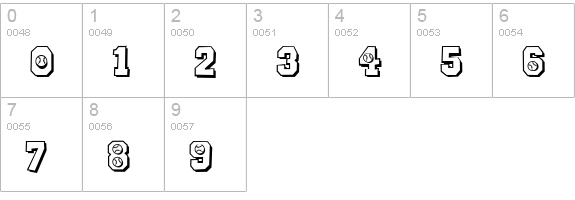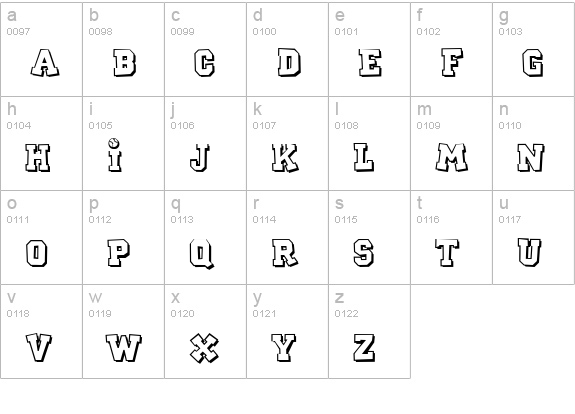
CK Sports Baseball Font Details
Introducing CK Sports Baseball font, a dynamic and versatile typeface perfect for all your sports-themed projects. This bold and energetic font captures the essence of the baseball field, with its strong lines and athletic flair. Whether you're designing team logos, sports posters, or event promotions, CK Sports Baseball font will bring a winning edge to your creations. The best part? CK Sports Baseball font is available for free download at FontsMarket.com! So you can incorporate this eye-catching font into your designs without any extra cost. Don't miss out on this fantastic opportunity to elevate your sports-related projects with the CK Sports Baseball font. Download it today and hit a home run with your designs!